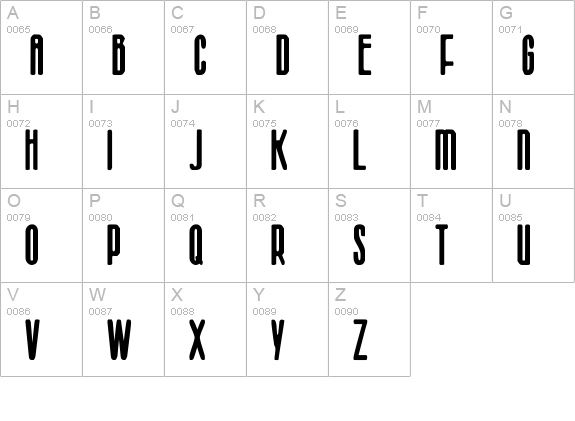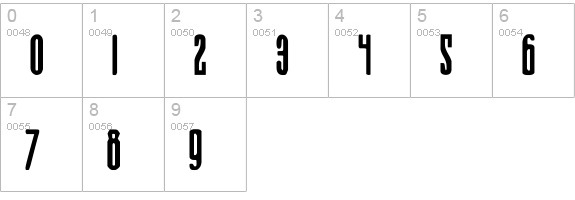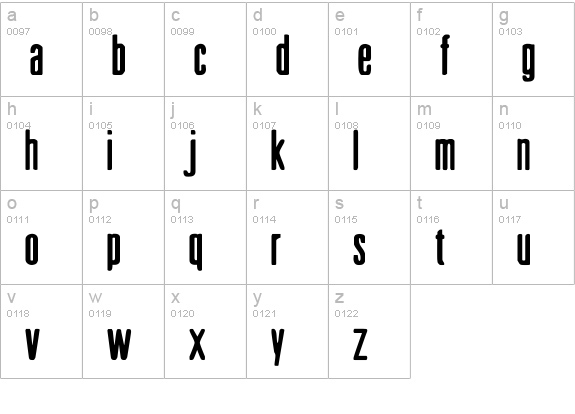
Sister Europe font is a stunning and versatile typeface that captures the essence of elegance and modernity. With its sleek lines and graceful curves, this font exudes a sense of sophistication that is perfect for any design project. What sets Sister Europe font apart is not only its exceptional aesthetics but also the fact that it is available for free. Yes, you read that right! This incredible font can be easily downloaded at FontsMarket.com, making it accessible to designers and creatives all over the world. Whether you are working on a logo, a website, or even a print advertisement, Sister Europe font will elevate your design to new heights. Its clean and legible letterforms ensure readability, while its unique character adds a touch of personality to your work. The versatility of Sister Europe font knows no bounds. It seamlessly adapts to any design style, whether it be modern and minimalistic or bold and expressive. From fashion magazines to corporate branding, this font is a perfect choice for conveying professionalism, elegance, and creativity. But it's not just the aesthetics that make Sister Europe font a must-have. Its extensive character set includes all the necessary glyphs and symbols, making it suitable for multilingual projects and ensuring that your message reaches a wider audience. So, why wait? Download Sister Europe font today from FontsMarket.com and unleash your creativity with this exceptional typeface. With its stunning design, free availability, and unmatched versatility, Sister Europe font is a true gem in the world of typography.